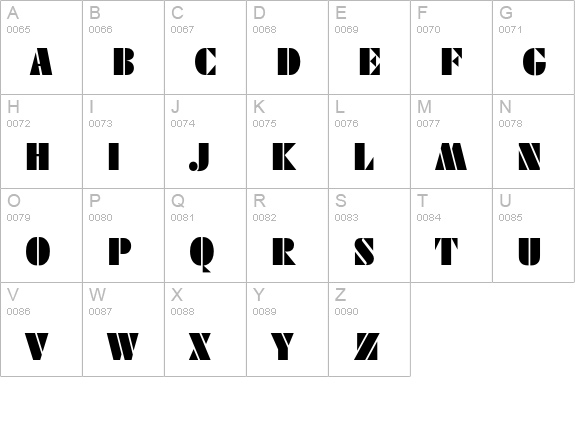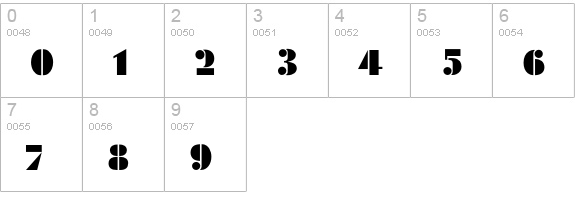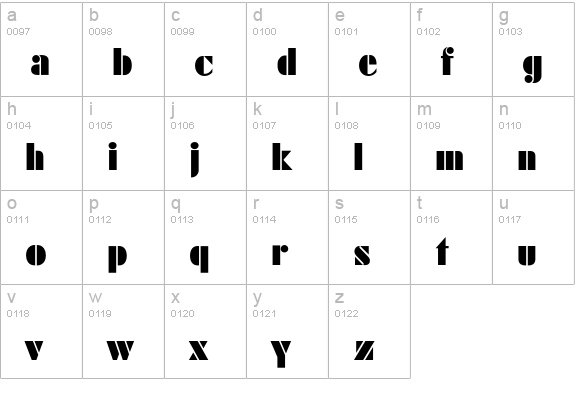
f01200036 font is a modern and stylish typeface that is perfect for a wide range of design projects. With its clean lines and sleek design, this font exudes sophistication and professionalism. It is versatile enough to be used in both digital and print designs, making it a valuable addition to any designer's toolkit. What sets f01200036 font apart is that it is available for free download at FontsMarket.com. This means that you can easily access this high-quality font without any cost, making it a cost-effective solution for your design needs. Whether you are working on a branding project, website design, or any other creative endeavor, f01200036 font is sure to elevate your work with its modern aesthetic and timeless appeal. Download it today and see the difference it can make in your designs!